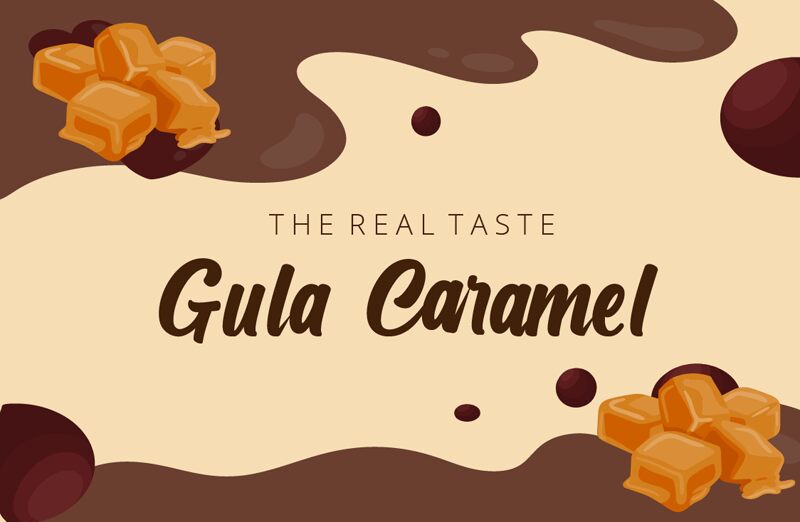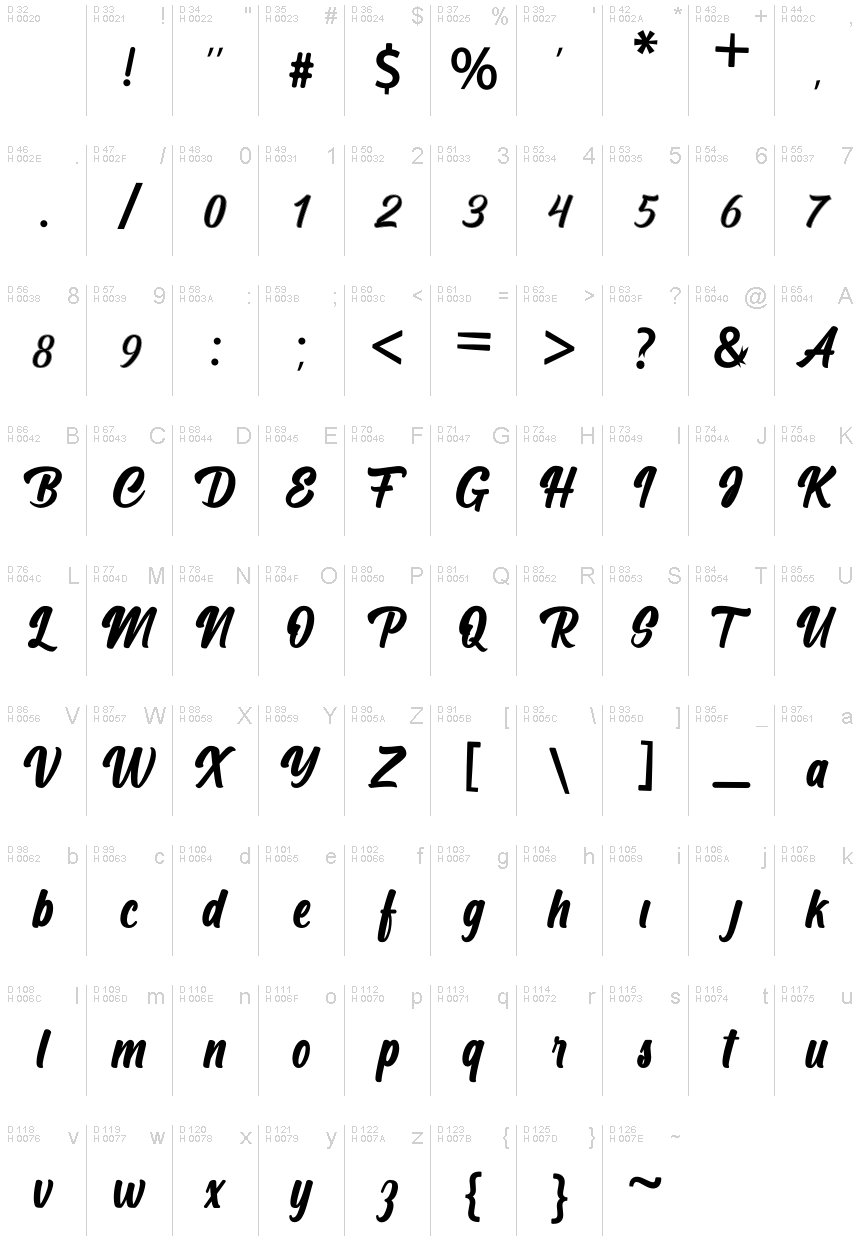
Gula Caramel
Gula Caramel font by Inesh Dewi is a sweet smooth brush typeface with beautiful connected letters intertwined with flowing strokes. This bold script emits dynamic and playful moods, ideal for fun youthful design projects. Made up of rounded strokes, Gula Caramel is a free font made to deliver a sweet signature-like feel.
Enjoy this exciting font’s touch in your posters, flyers, social media graphics, websites, covers, blogs posts and other digital or print projects. Its bolder letters are also great for printed packaging and branding especially in the food industry geared toward kids or young adults.